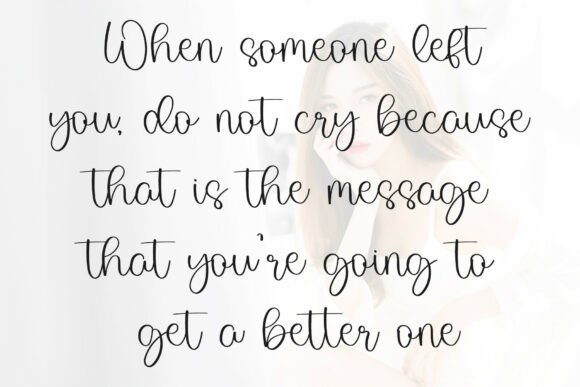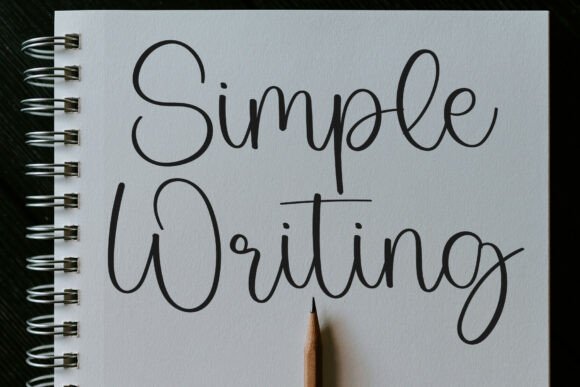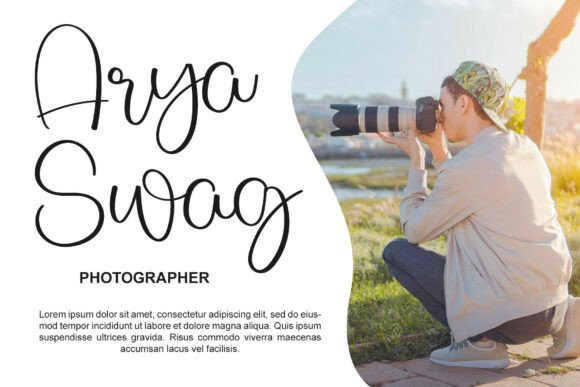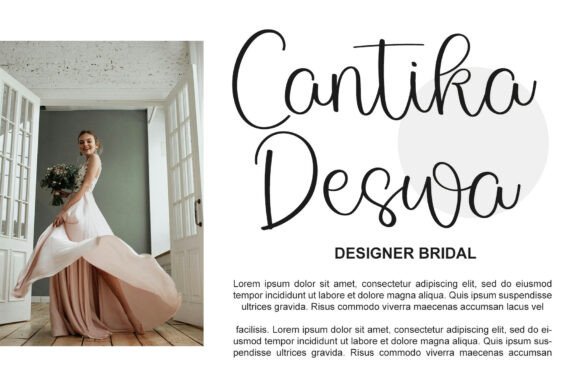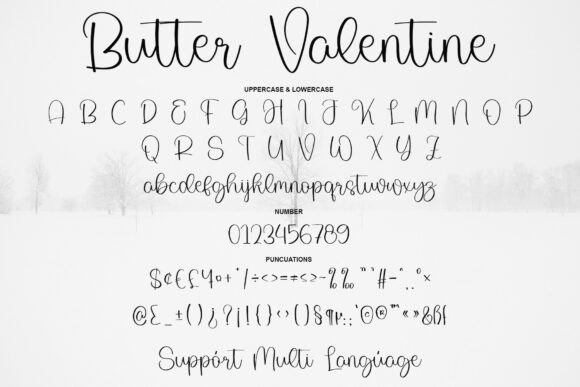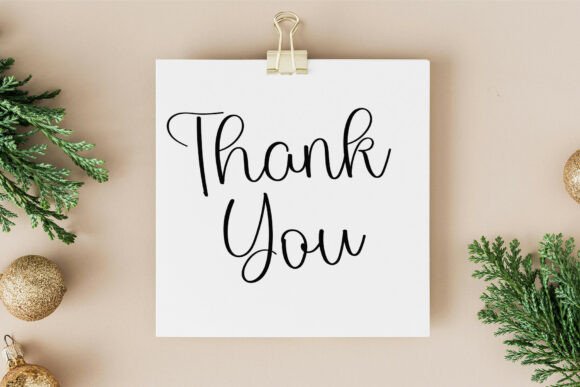
Love in Letters: Introducing the Butter Valentine Font
Do you remember that moment when you first fell in love with a font? Maybe it was the whimsical curves of a handwritten script or the elegant flair of a classic serif. For many designers, the discovery of the perfect font can be a truly romantic experience – and we’re excited to introduce you to the Butter Valentine Font, a delicate and airy script font that’s sure to capture your heart.
Designed to evoke the feeling of hand-penned love letters, the Butter Valentine Font is a premier asset for romantic branding, boutique gift packaging, and sentimental greeting cards. Its fine, monolinear strokes and natural, upright posture make it the perfect choice for designers looking to add a touch of elegance and sophistication to their projects. With its tall, looping ascenders and rhythmic visual flow, this font is sure to make your designs stand out and leave a lasting impression.
Butter Valentine Font Key Features
- Unique Characteristics: The Butter Valentine font features a unique, hand-drawn style with a mix of cursive and script elements, giving it a romantic and elegant feel.
- Font Weight: The font is available in light, regular, and bold weights, allowing designers to choose the perfect style for their project.
Designer Review: Butter Valentine Font
At first glance, the Butter Valentine font caught my eye with its unique, hand-drawn aesthetic ✨. The font’s quirky, whimsical feel immediately makes you think of Valentine’s Day and romance. It’s perfect for adding a touch of playfulness to your designs.
Some of the font’s strengths include its versatility and the variety of styles it offers. The font includes multiple weights, from light to bold, as well as a range of decorative elements that can add a personal touch to your designs. This makes it ideal for projects where you want to convey a sense of warmth and personality.
The font also has excellent legibility, making it suitable for body text as well as headings. However, there are a few limitations to keep in mind ⚠️.
- The font may not be the best choice for projects where a professional, modern look is required.
- Some of the decorative elements can feel a bit over-the-top, so use them sparingly to avoid overwhelming your design.
- The font may not be compatible with all operating systems or devices, which could lead to display issues.
Overall, the Butter Valentine font is a charming addition to any designer’s toolkit. While it may not be suitable for all projects, its unique aesthetic and versatility make it a great choice for those looking to add a touch of whimsy to their designs.
Butter Valentine Font is ideal for creating romantic and whimsical designs. Use it for:
– Valentine’s Day cards and decorations
– Baby shower invitations and decorations
– Any project that requires a touch of sweetness and elegance.